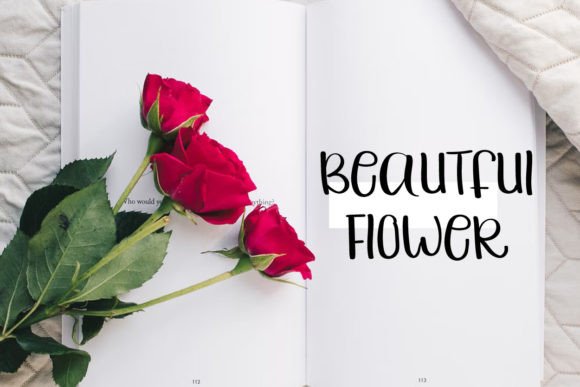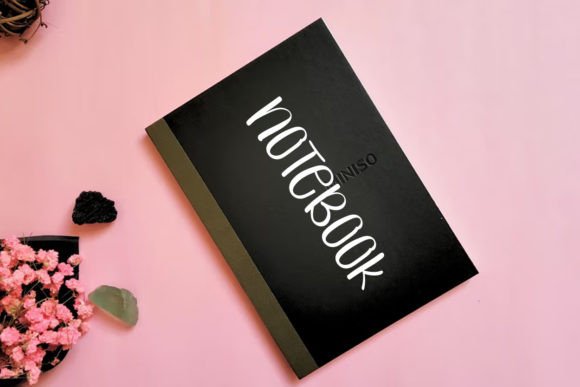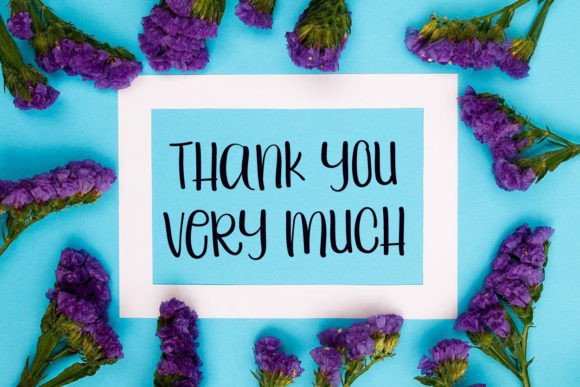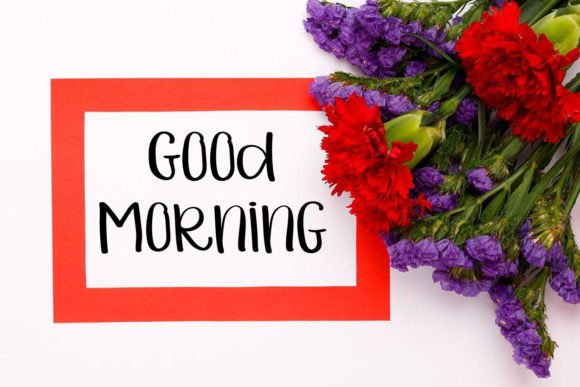
Simple Font
This font, Jadul, exudes a natural, stylish charm that makes it the perfect choice for any exceptional project seeking a handwritten aesthetic. Its versatile style adds a touch of loveliness to a myriad of designs, making it an ideal fit for wedding invitations, thank-you cards, quotes, greeting cards, logos, business cards, and any creative endeavor in search of a personalized touch.
The inherent beauty of Jadul lies in its seamless blend of sophistication and authenticity. The handwritten feel of the font imparts a sense of genuine warmth and uniqueness, making it particularly well-suited for projects that aim to convey a personal or heartfelt message.
In the realm of wedding invitations, Jadul shines as it effortlessly captures the essence of romance and elegance. Its strokes and curves unfold gracefully, creating an inviting atmosphere that sets the tone for a special celebration. Couples seeking to infuse their invitations with character and charm will find Jadul to be a standout choice.
Thank-you cards, designed to express gratitude and appreciation, benefit from Jadul’s stylish yet approachable demeanor. The font’s natural flow enhances the sincerity of the words, turning a simple note of thanks into a visually pleasing expression of genuine emotion.
Quotes, with their power to inspire and motivate, gain an added layer of beauty when presented in Jadul. The font’s stylish yet understated appearance allows the words to take center stage, encouraging readers to reflect on the wisdom within. Each letter seems to carry a subtle elegance that elevates the impact of the message.
Greeting cards, a medium for conveying sentiments and well-wishes, find a perfect match in Jadul. Its customized touch imparts a sense of intimacy, turning a card into a personal keepsake. Whether used for birthdays, holidays, or special occasions, Jadul adds a special touch that resonates with recipients.
Logos, as the visual representation of a brand, benefit from the distinctive style of Jadul. Its handwritten feel adds a human touch to corporate identity, making the brand more relatable and memorable. In a world saturated with generic designs, Jadul stands out as a unique and eye-catching choice.
Business cards, serving as a first impression in professional settings, acquire a touch of elegance with Jadul. The font communicates a commitment to sophistication and attention to detail, leaving a lasting impression on potential clients and partners.
In essence, Jadul is more than just a font; it’s a versatile tool that enhances the beauty and impact of any design it graces. Its natural, stylish demeanor makes it the perfect companion for extraordinary projects that demand a handwritten touch, ensuring that each creation stands out with a unique and personalized flair.